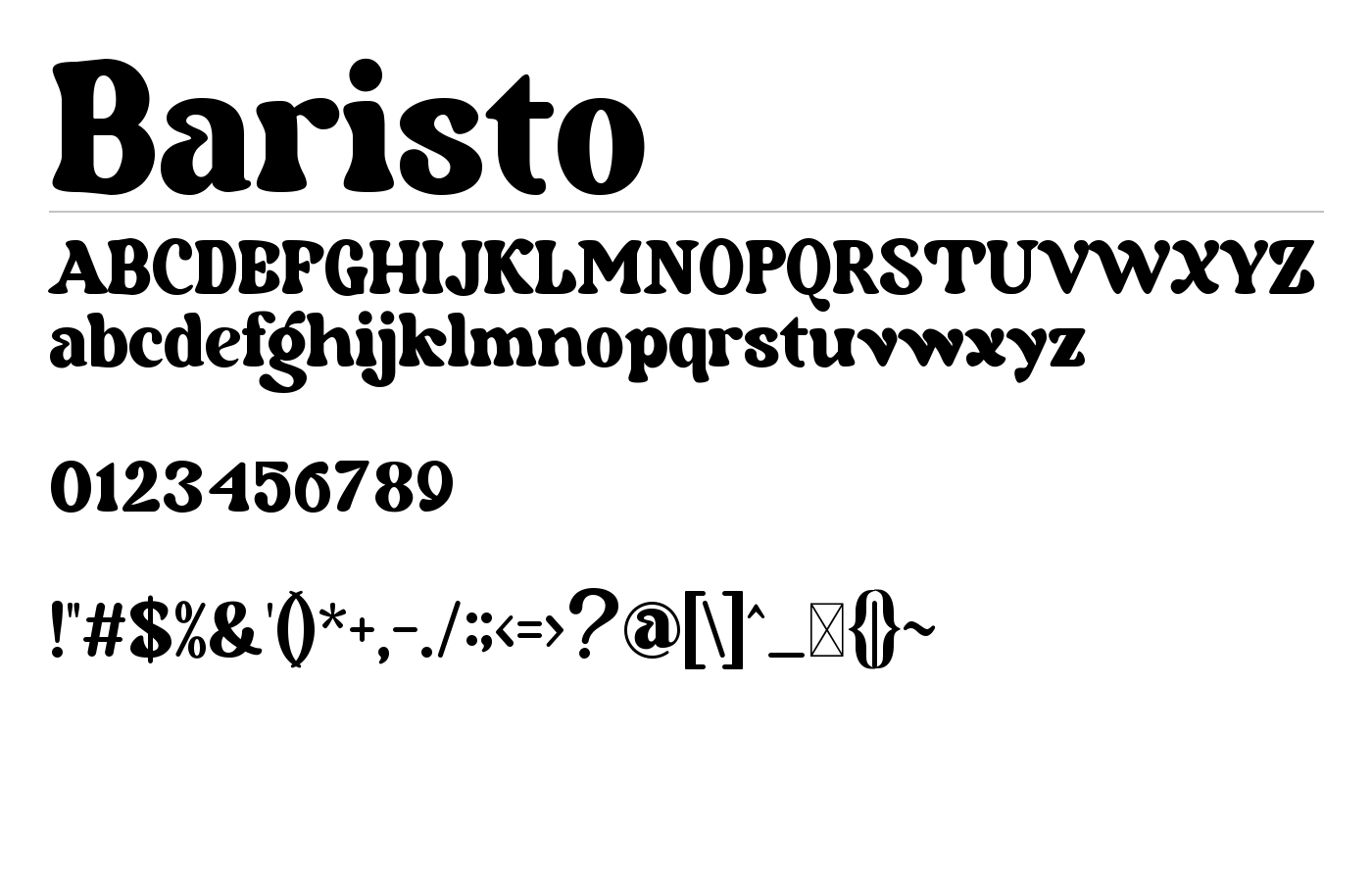
Baristo is a bold, serif font with a playful and slightly retro character, featuring thick, rounded serifs and lively, varied stroke widths that create a unique, friendly vibe. Its distinctive letterforms and strong presence make it ideal for headlines, logos, and branding projects aiming to convey warmth and personality with a touch of vintage charm. This font works well for packaging, posters, and editorial designs that want to stand out with a bold yet approachable style.
Baristo Font
About Baristo Font
| Font family | Baristo Font |
| Designer | ToniStudio |